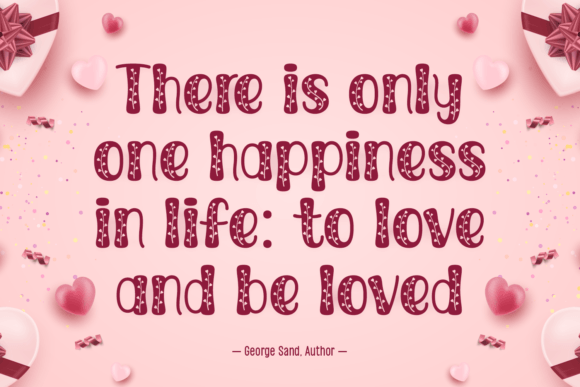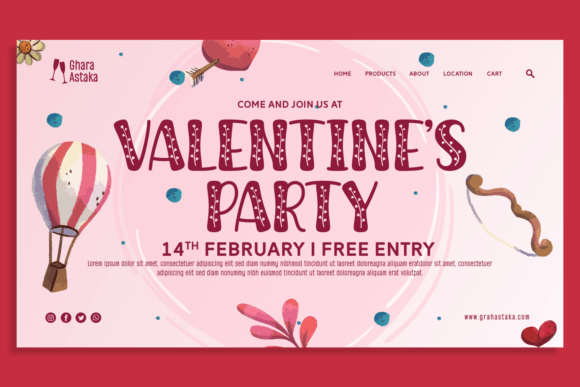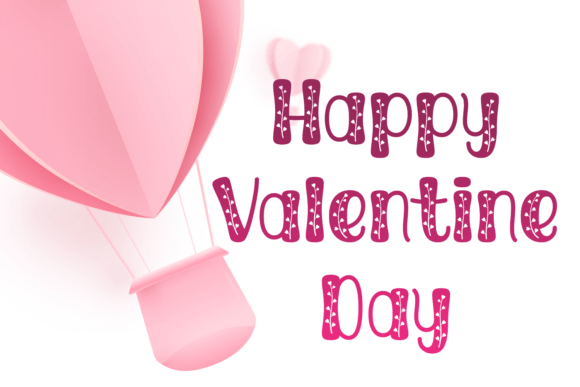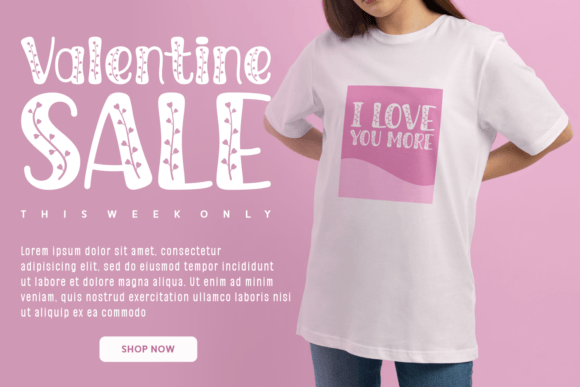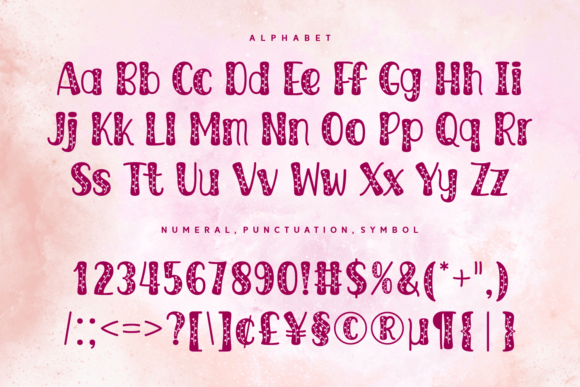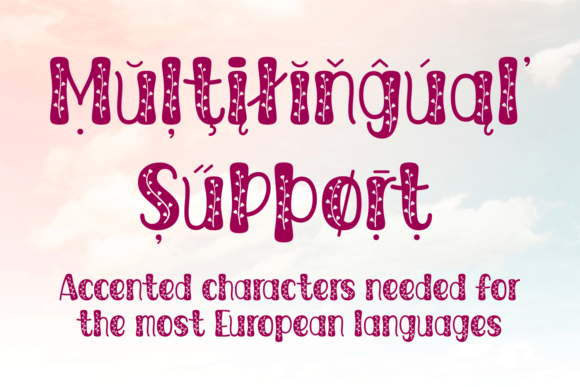
Introduction to Larissa Nature Font
Have you ever found yourself stuck in a creative rut, staring at a blank canvas, desperate for inspiration? You’re not alone. Sometimes, all it takes is a single font to spark a wave of creativity and set your imagination ablaze. For designers, the right font can be a game-changer, elevating a project from ordinary to extraordinary.
One such font that has captured the hearts of designers worldwide is the Larissa Nature Font. This beautiful, mixed-width font is a treasure trove of charming details, waiting to be unleashed on your next creative project. With its adorable elements and high-quality design, it’s the perfect resource for anyone looking to add a touch of whimsy and romance to their work.
Key Features of Larissa Nature Font
- High-quality font with a natural, handwritten feel, ideal for creative projects and designs that require a personal touch.
- Designed with a unique, whimsical style that adds a touch of personality to any design project.
- Perfect for designers looking for a free, high-quality font that can add a natural, handwritten touch to their creative projects.
Honest Review: Larissa Nature Font
As a designer, I’m always on the lookout for high-quality design resources to elevate my creative projects. Recently, I stumbled upon the Larissa Nature Font, and I’m excited to share my honest review with you.
What works well: ✨ The Larissa Nature Font has a beautiful, natural aesthetic that’s perfect for outdoor or environmental-themed projects. The font is highly legible, even at smaller sizes, and the subtle texture adds a nice touch of realism. The font also comes with a transparent background, making it easy to customize and use in a variety of design contexts.
- Beautiful, natural aesthetic
- Legible at various font sizes
Overall, I’m impressed with the Larissa Nature Font, and I would definitely recommend it as a design resource for creative projects. With its high-quality design and transparent background, it’s a great addition to any designer’s toolkit.
Larissa Nature Font
The Larissa Nature Font is a high-quality design resource perfect for creative projects. It features a transparent background, making it easy to customize and integrate into various designs.
Tips for Getting the Most Out of Larissa Nature Font
To get the most out of the Larissa Nature Font, experiment with different font sizes, colors, and combinations to create unique and eye-catching designs.
The Larissa Nature Font is perfect for various creative projects, including:
- Social media content creation
Compared to Larissa Nature Font, Pacifico has a more refined and sophisticated look. While Larissa Nature Font is great for outdoor-themed projects, Pacifico is better suited for more formal and elegant designs.